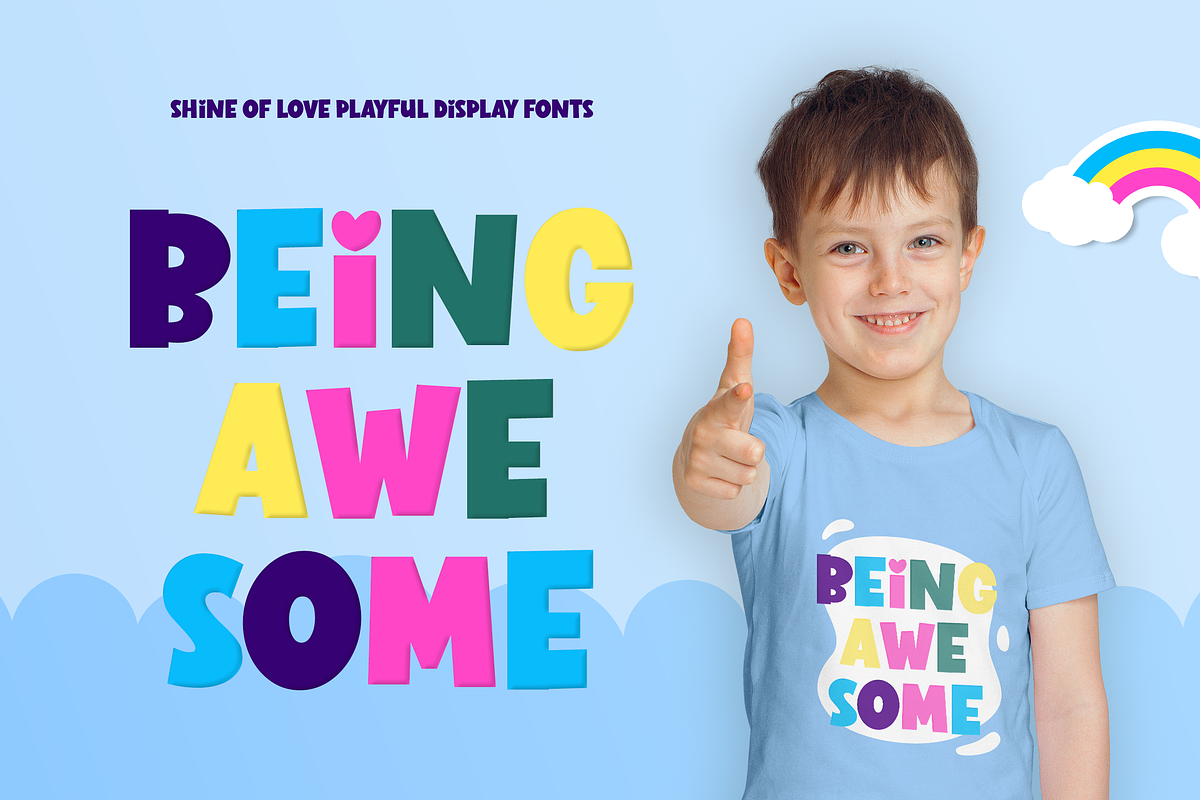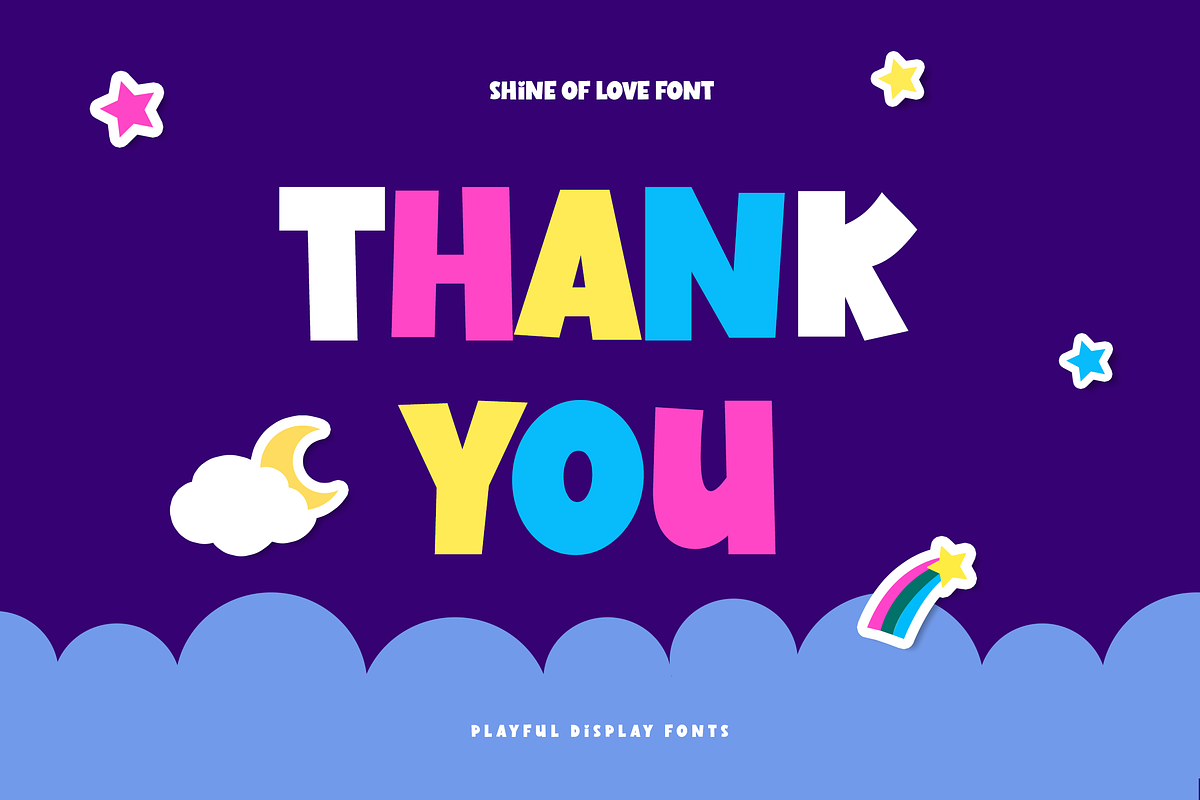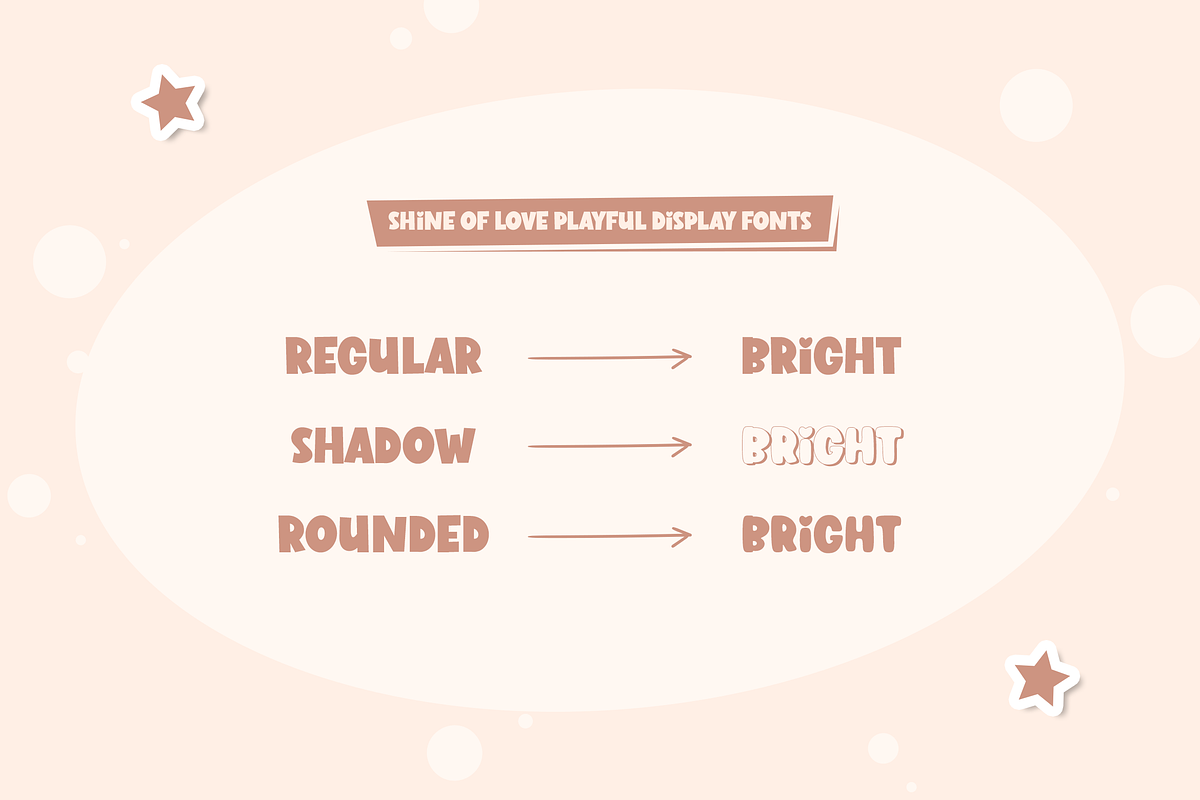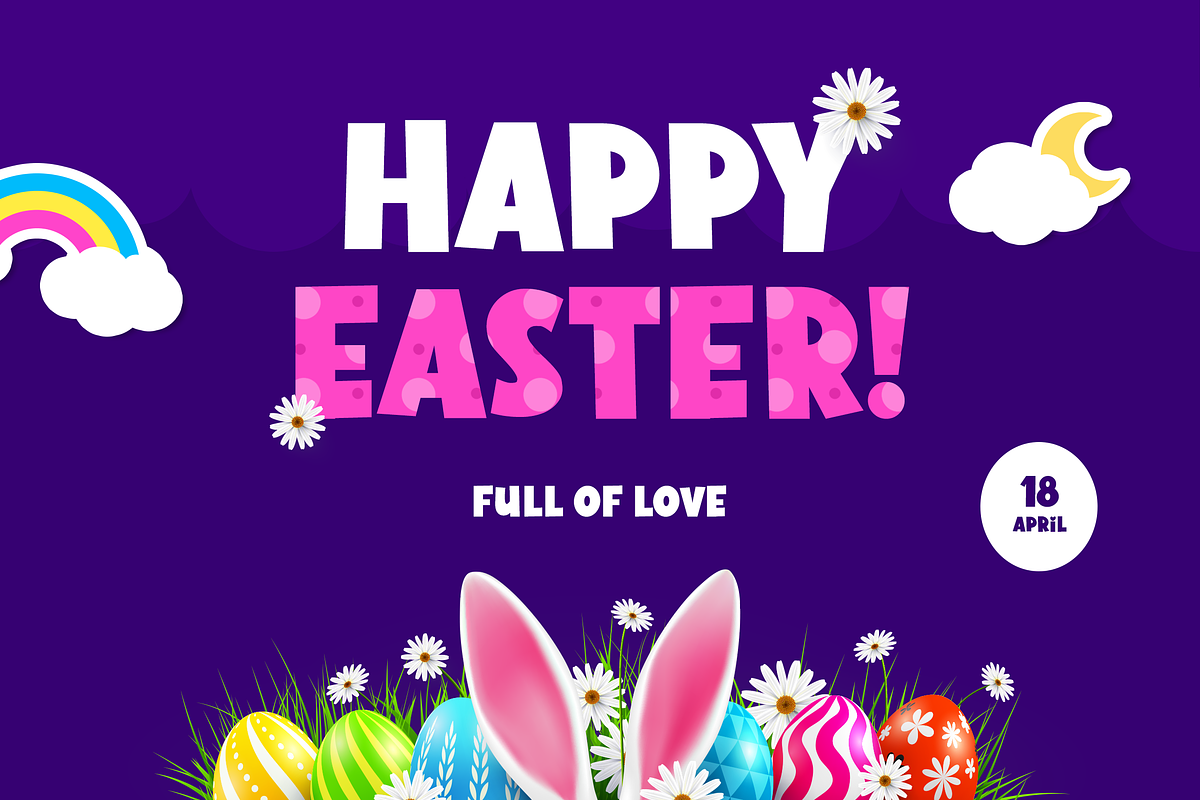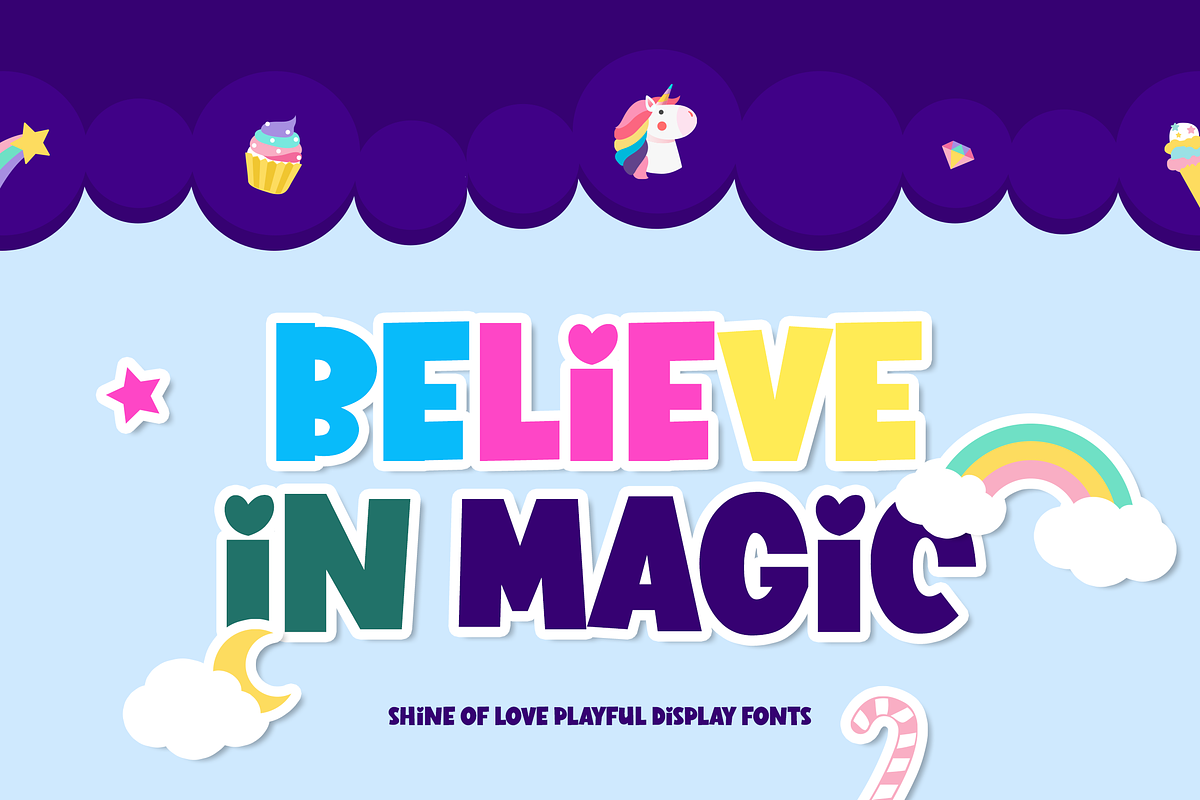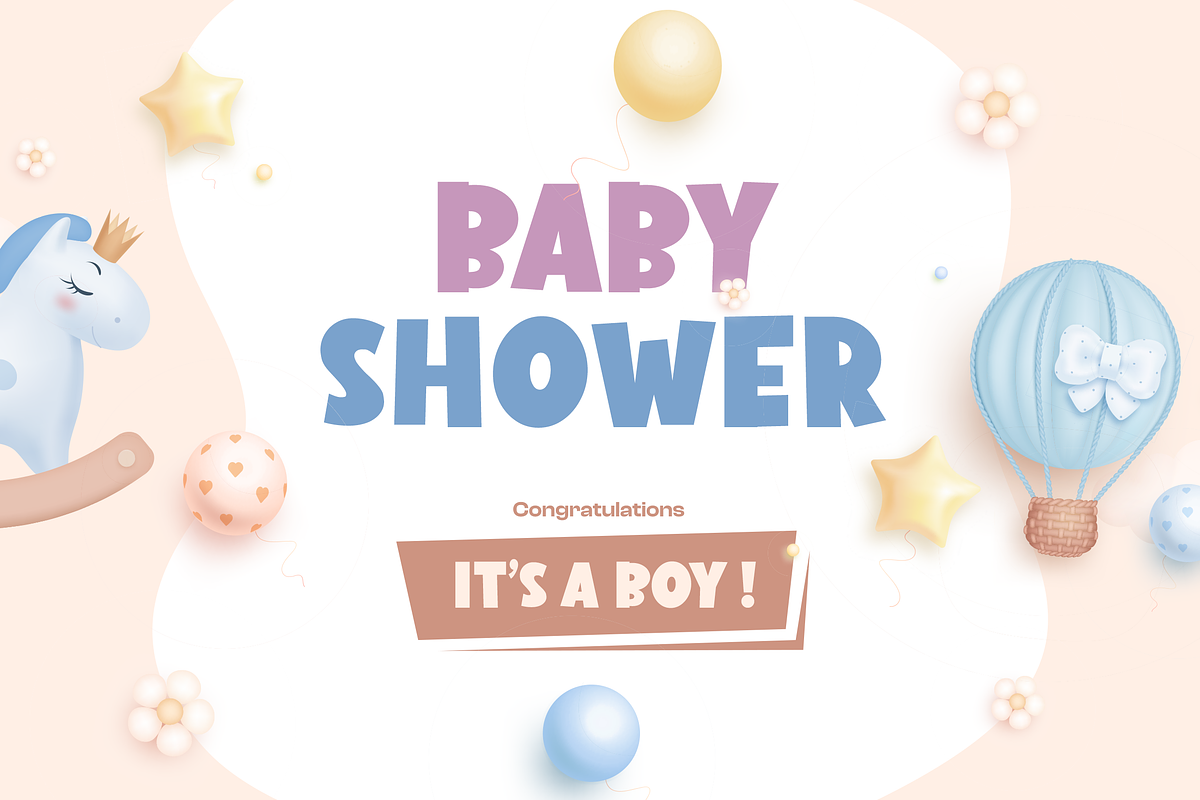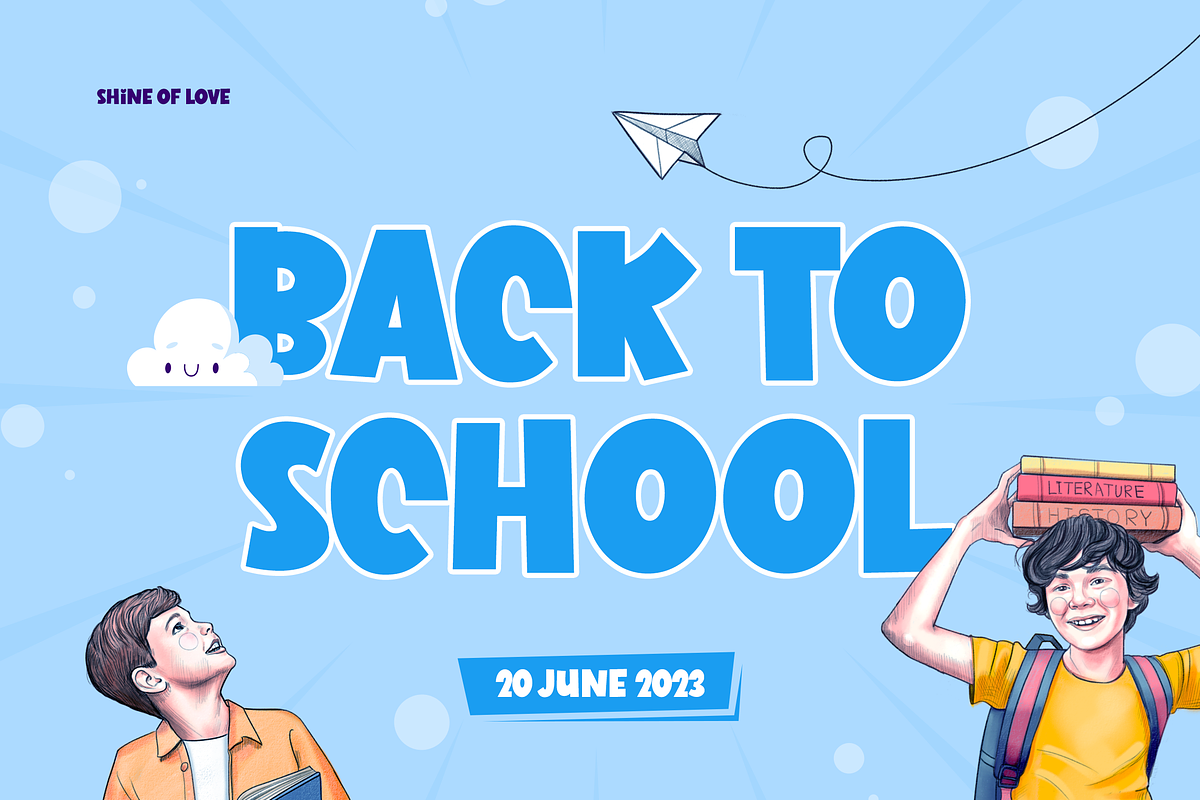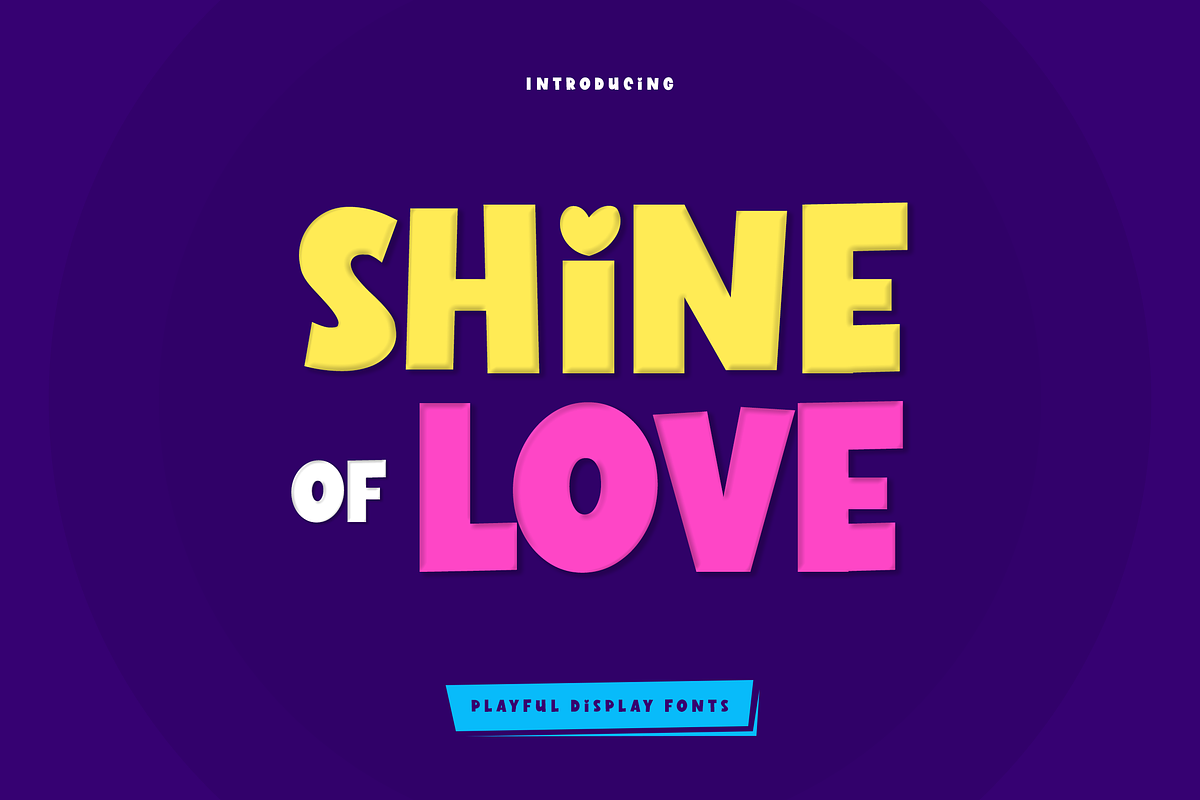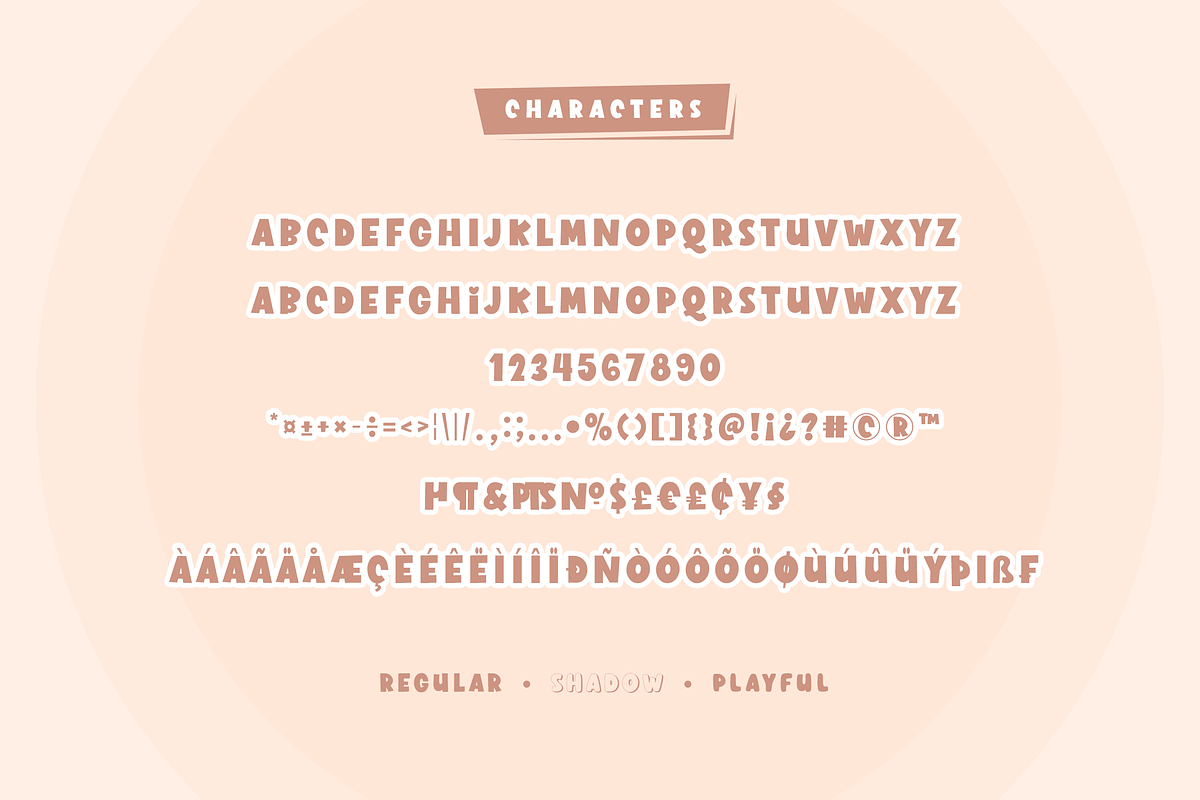
Shine of Love
Cute and Playful display fonts crafted with heart, especially for you. It is perfect for children-themed designs, Such as t-shirt designs, story books, packaging, children’s activity or school projects, posters, greeting cards, valentine’s crafts, and more!
Come in 03 variants :
- Shadow
- Playful